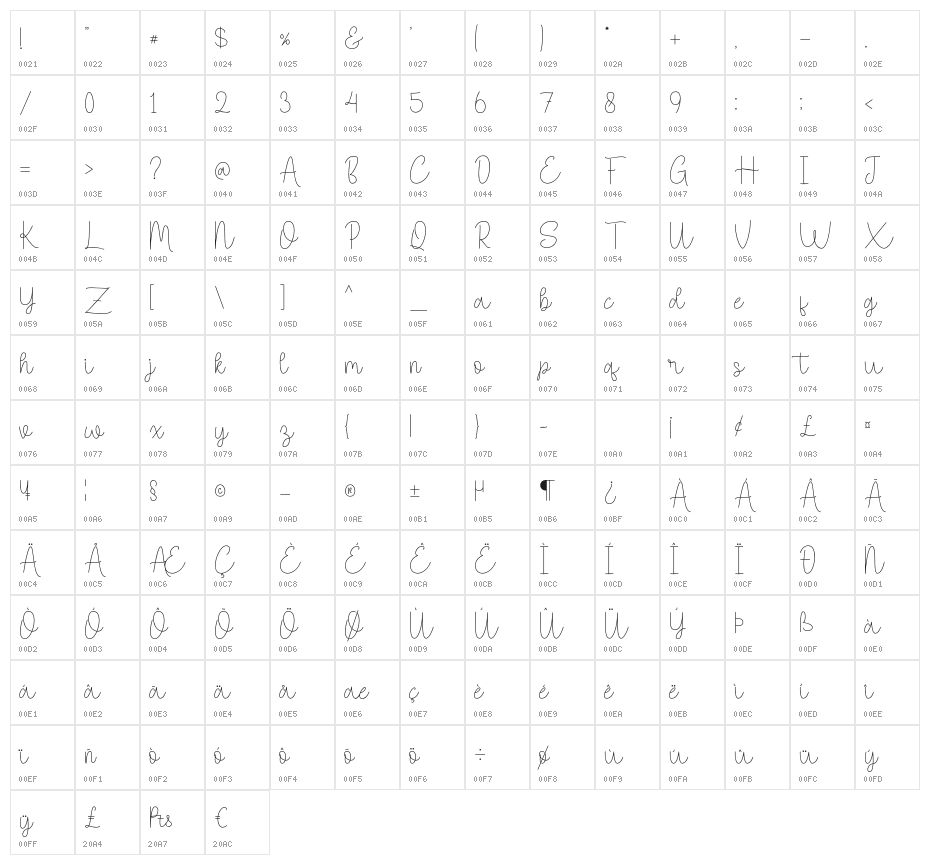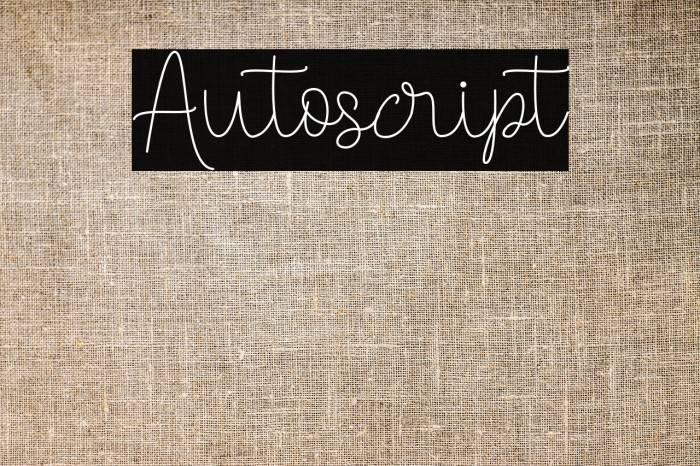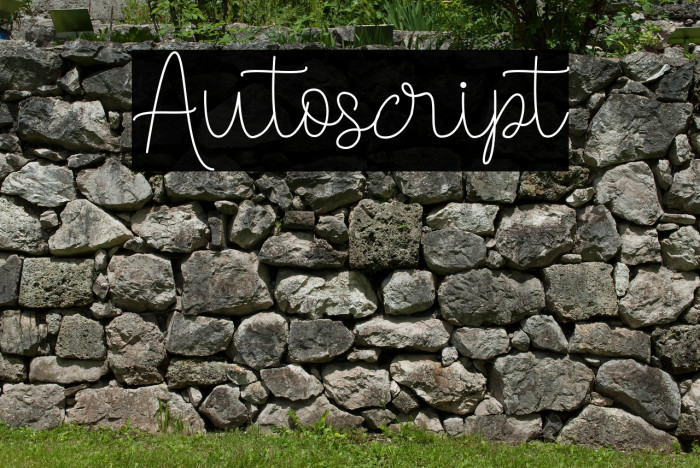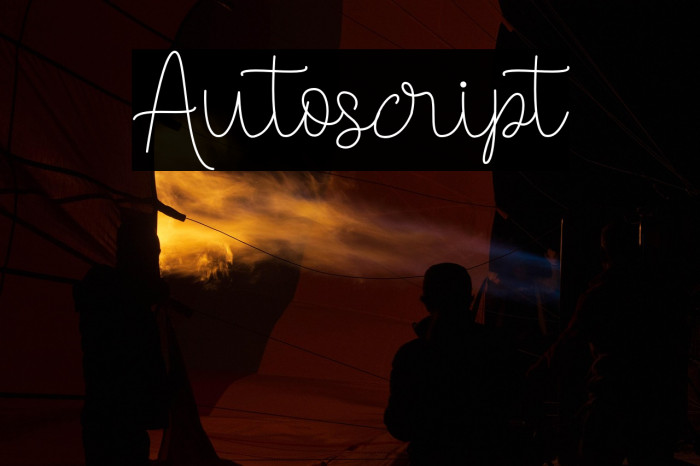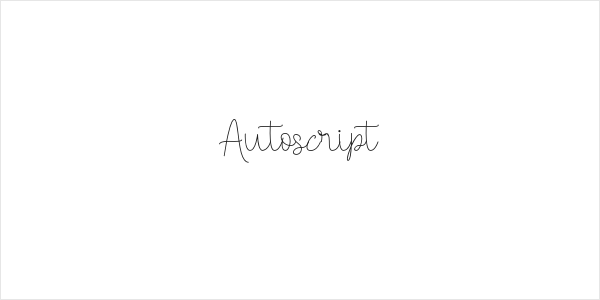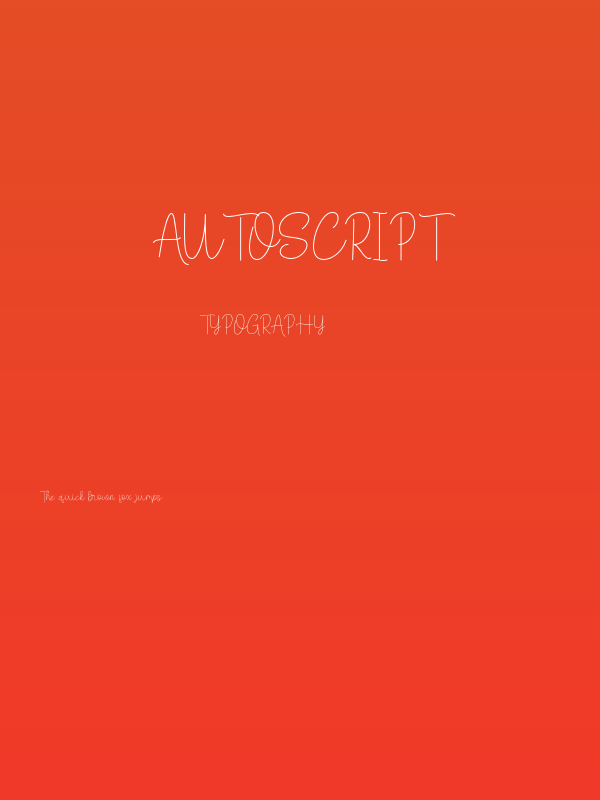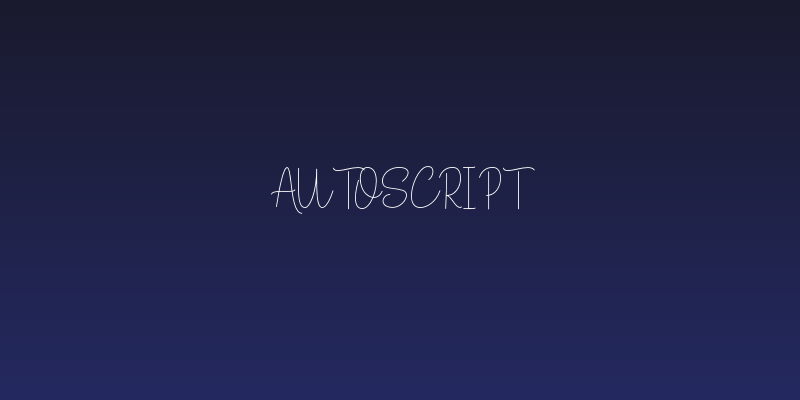
Autoscript Font
Autoscript Description
A delicate, handwritten script font with a casual and flowing style, featuring thin strokes and a playful character.
| Use Case | Logos, Headlines |
| Proposed Projects | Invitations, greeting cards, personal branding. |